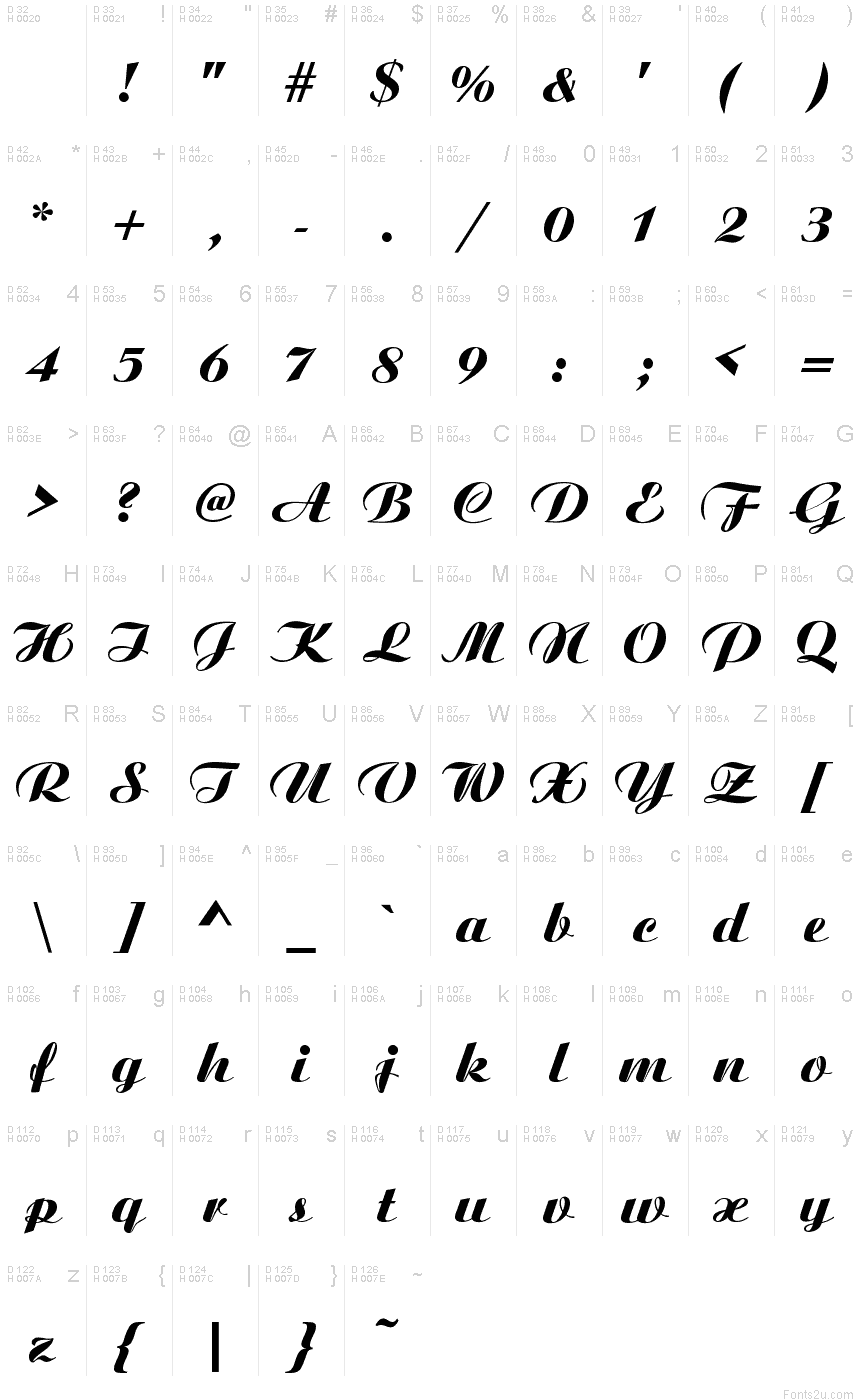
Ariston
Ariston font is a free calligraphy typeface that pours across the page like wet ink from a vintage fountain pen. Its sweeping entry strokes, tight rhythm, and polished curves give every word a sense of ceremony, without feeling stiff or old-fashioned. The Ariston style within this font family carries a glossy, almost engraved look that instantly dresses up even the simplest phrase.
Using Ariston, wedding invitations, save-the-dates, boutique logos, event posters, certificates, and upscale packaging all gain a smooth, luxurious voice. This free font works beautifully as a large headline script, paired with a clean sans serif in smaller text for balance. Keep plenty of breathing room around it and let those long, velvety swashes lead the eye through your layout.